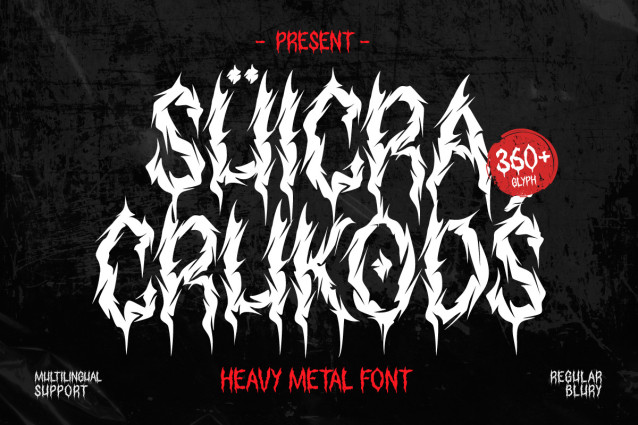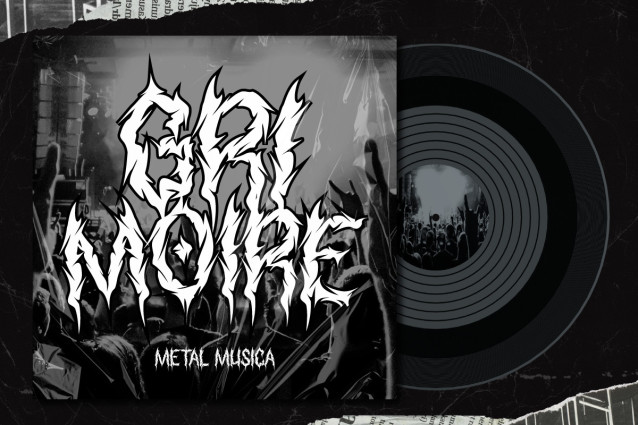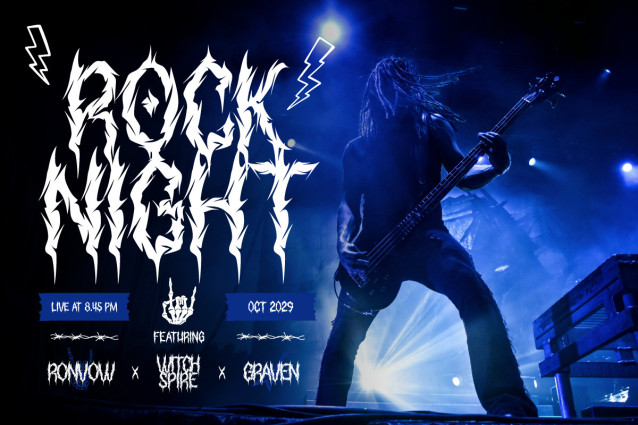
Suicra Crukods Font
Suicra Crukods Font, a heavy metal display font designed to dominate and electrify. Featuring sharp edges, aggressive strokes, and bold structures, this font perfectly captures the energy of the metal scene. Whether you’re creating band logos, album covers, event posters, or edgy merchandise, Suicra Crukods brings an intense, unforgettable vibe to your designs.
This font is not just bold—it’s brutal, loud, and unapologetically fierce. Suicra Crukods is built for creators who dare to push boundaries and want to inject their work with a hardcore, underground feel. Perfect for rock, punk, and heavy metal projects that need to stand out and scream for attention.